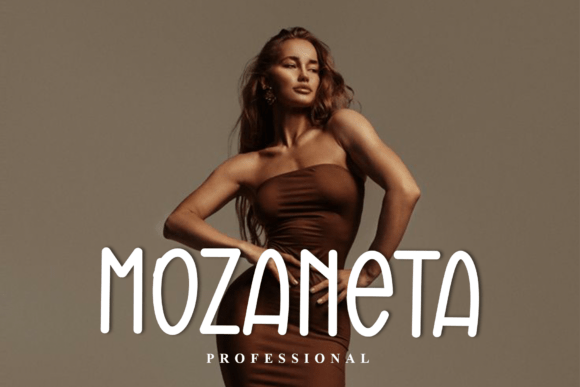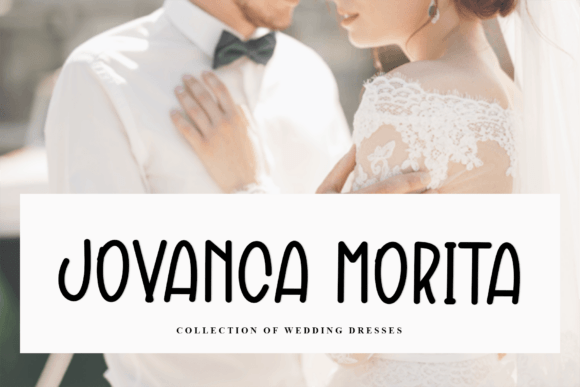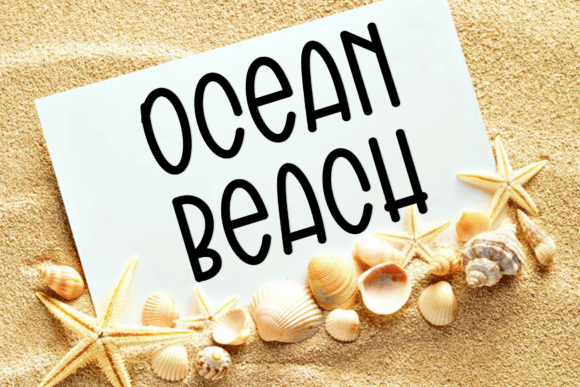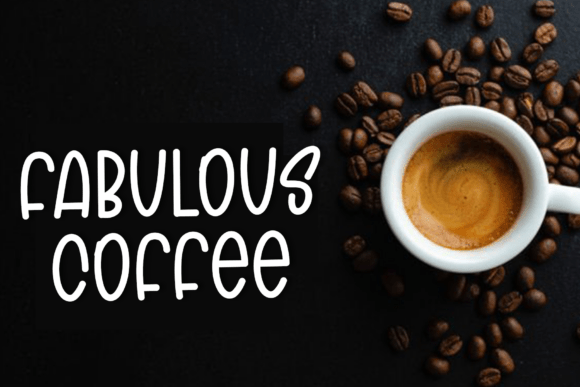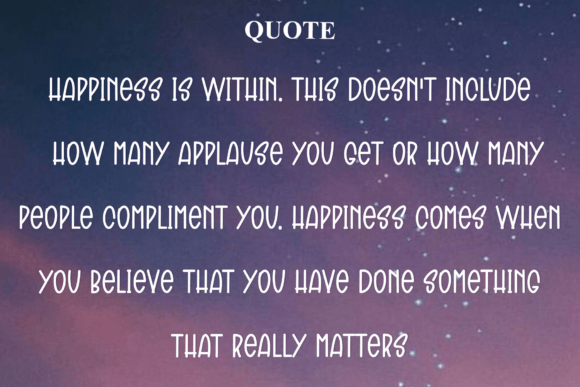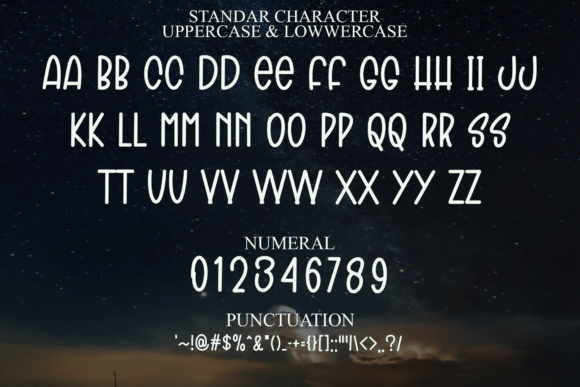
Embracing the Warmth of Autumn with the Perfect Font: Autumn Season Font
As the leaves change colors and the air grows crisp, the autumn season brings a sense of coziness and warmth that’s hard to resist. For designers and crafters, this season offers endless inspiration for creative projects that evoke a sense of comfort and friendliness. One of the key elements in capturing the essence of autumn in your designs is choosing the right font. This is where the Autumn Season Font comes into play – a casual and creative typeface that embodies the warmth and playfulness of the season.
The Characteristics of Autumn Season Font
The Autumn Season Font is designed to exude a sense of warmth and friendliness, making it perfect for a variety of creative projects. Its round, playful strokes create a relaxed and approachable feel that’s hard to achieve with more formal fonts. This casual nature makes it an excellent choice for personal projects, invitations, and social media graphics where you want to connect with your audience on a more personal level.
Perfect for Personal Projects and Invitations
Whether you’re designing a photo album, scrapbook, or any other personal project, the Autumn Season Font adds a charming touch that makes your work stand out. Its hand-drawn aesthetic gives your designs a unique and fun look that’s sure to delight. For invitations, especially those for fall-themed parties, harvest festivals, or Thanksgiving gatherings, this font sets the tone for a warm and welcoming event.
Enhancing Social Media Graphics
In the realm of social media, standing out in a crowded feed is crucial. The Autumn Season Font can help you achieve just that. Its distinctive look makes it perfect for crafting eye-catching social media graphics, blog posts, and website headers that capture the essence of the season. Whether you’re a blogger, influencer, or business owner, this font can help you connect with your audience in a more personal and engaging way.
Technical Details: PUA Encoded Glyphs
The Autumn Season Font is not just aesthetically pleasing; it’s also technically versatile. It comes equipped with standard PUA (Private Use Area) Encoded glyphs. This means the font is designed to work seamlessly across various application engines, including Adobe Photoshop, Corel, Adobe Illustrator, Canva, and many others. This compatibility ensures that you can use the Autumn Season Font in a wide range of design projects without worrying about encoding issues.
Advantages of PUA Encoded Glyphs
- Wide Compatibility: The PUA encoding allows the font to be used in most graphic design software, making it highly versatile for different types of projects.
- Ease of Use: Designers can easily access and use the glyphs in their designs without complex configurations.
- Rich Design Elements: With PUA Encoded glyphs, you often get access to a rich set of characters, symbols, and ligatures that can enhance your designs.
Tips for Using Autumn Season Font
To make the most out of the Autumn Season Font, consider the following tips:
- Pair with Complementary Fonts: While the Autumn Season Font is charming on its own, pairing it with a more formal or serif font can create interesting contrasts in your designs.
- Experiment with Colors: Autumn is all about warm colors. Experiment with hues of orange, red, yellow, and brown to complement the font’s warm feel.
- Play with Sizes: Don’t be afraid to vary the font size to create visual hierarchy and emphasis in your designs.
The Autumn Season Font is a delightful addition to any designer’s toolkit, especially those looking to infuse their projects with the warmth and playfulness of the autumn season. Its casual, creative vibe makes it perfect for a wide range of applications, from personal projects and invitations to social media graphics. With its PUA Encoded glyphs, this font offers both aesthetic appeal and technical versatility. So, as the leaves fall and the seasons change, let the Autumn Season Font be your companion in creating designs that are as cozy and inviting as a crisp autumn day.